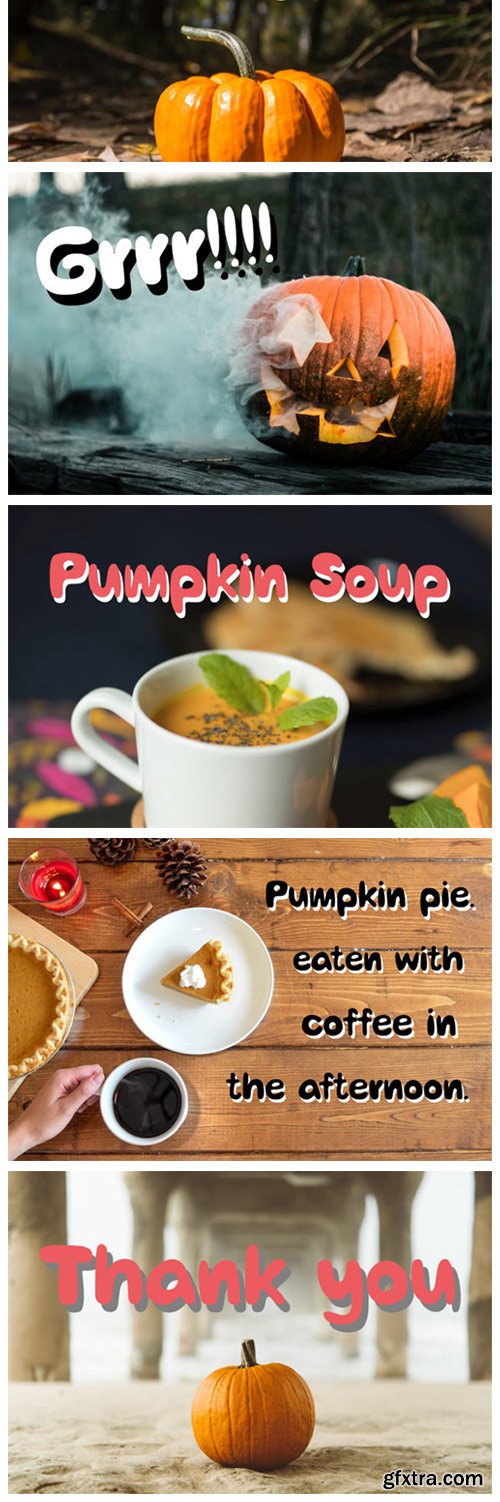
Pumpkin Font
Pumpkin is a playful, chunky charactered display font. Its friendly feel makes this font incredibly versatile, fitting a wide range of contexts. Add it to your creative ideas and notice how it makes them stand out!